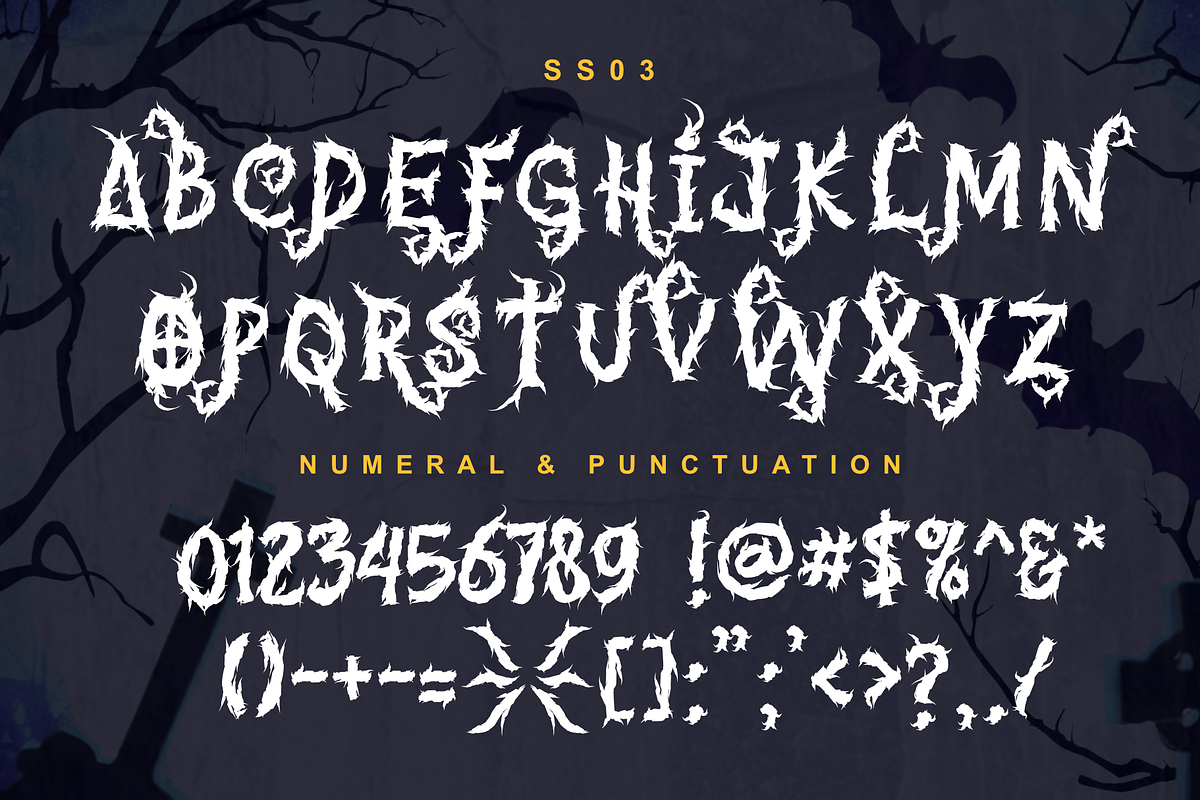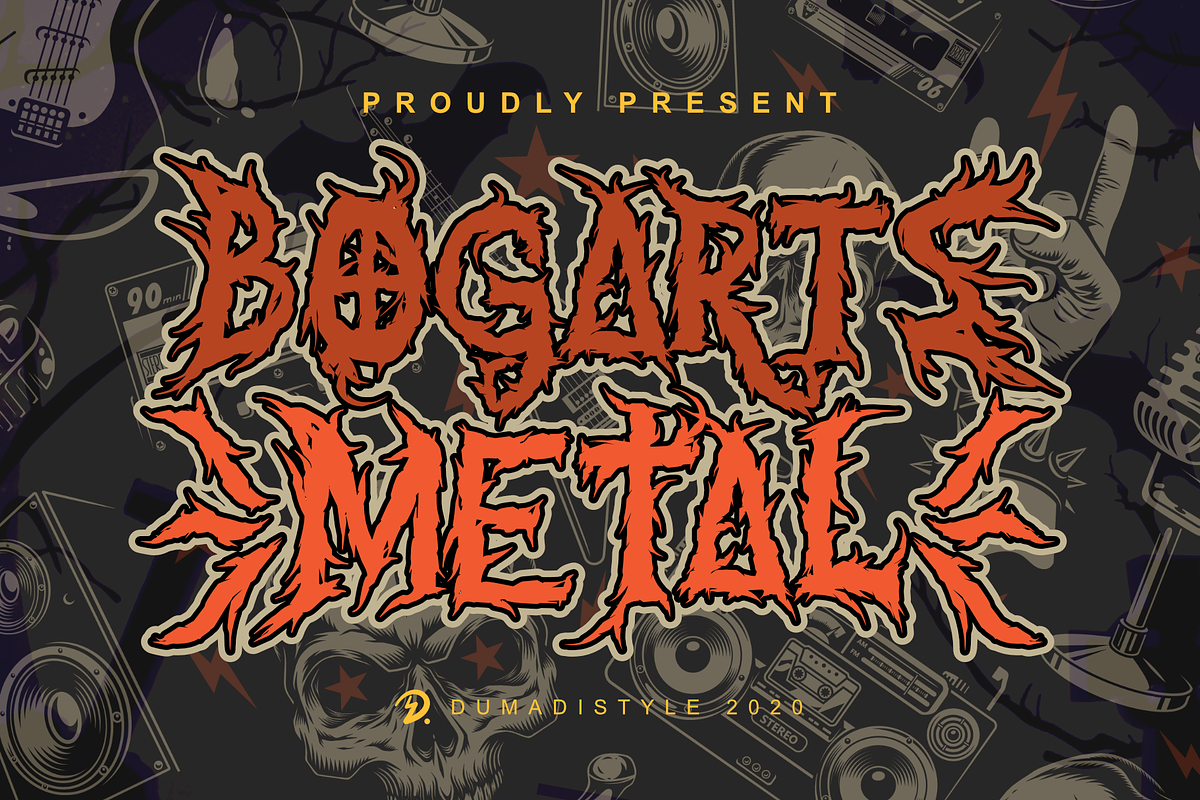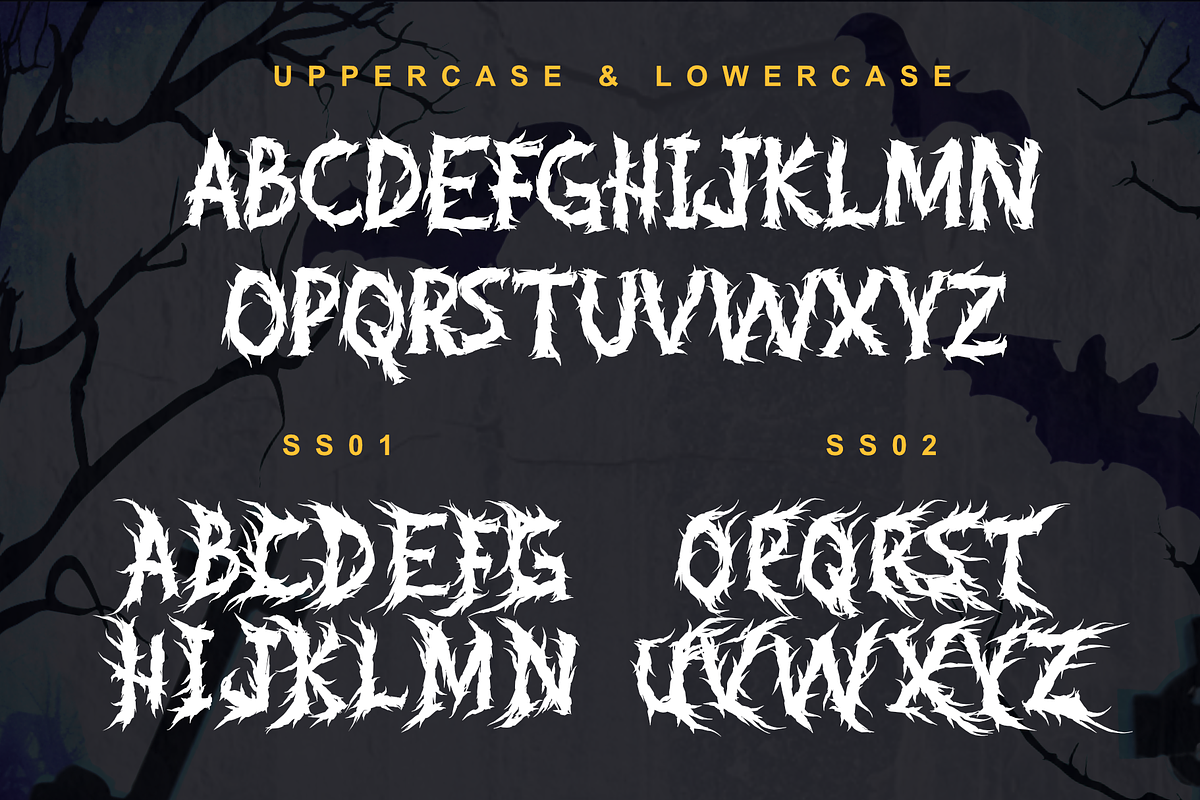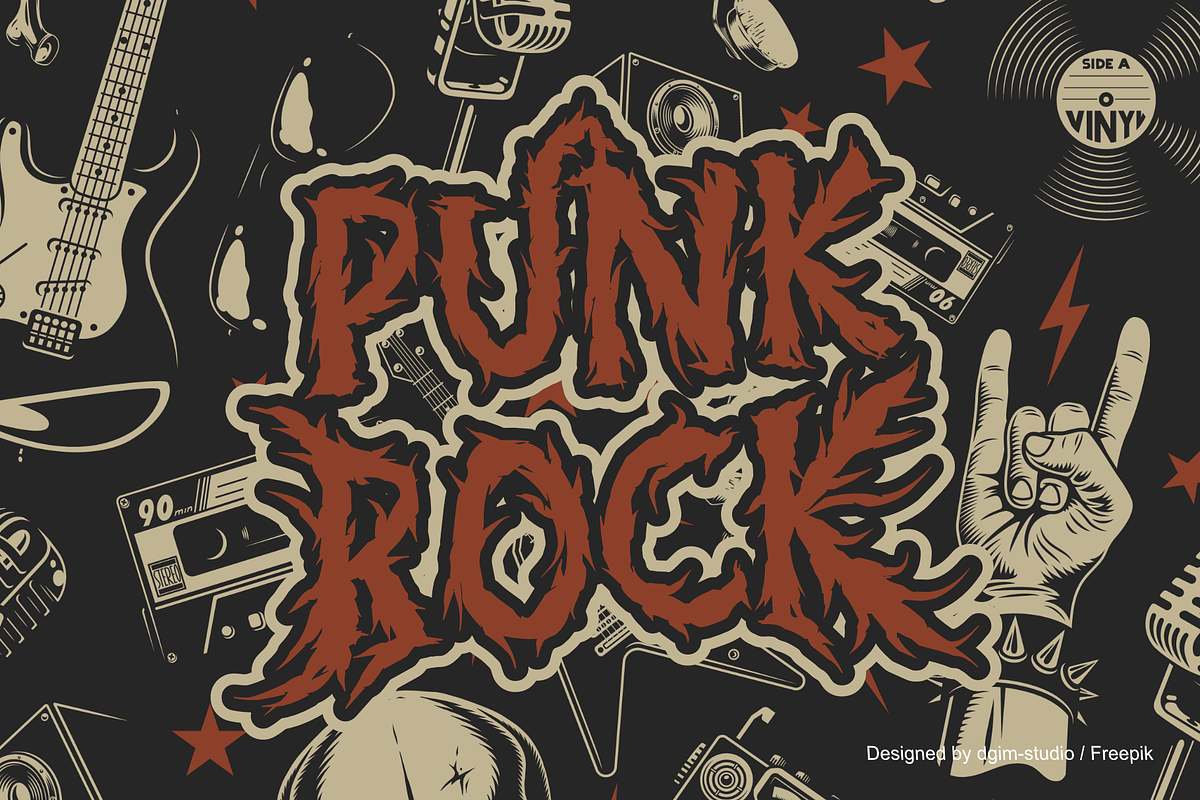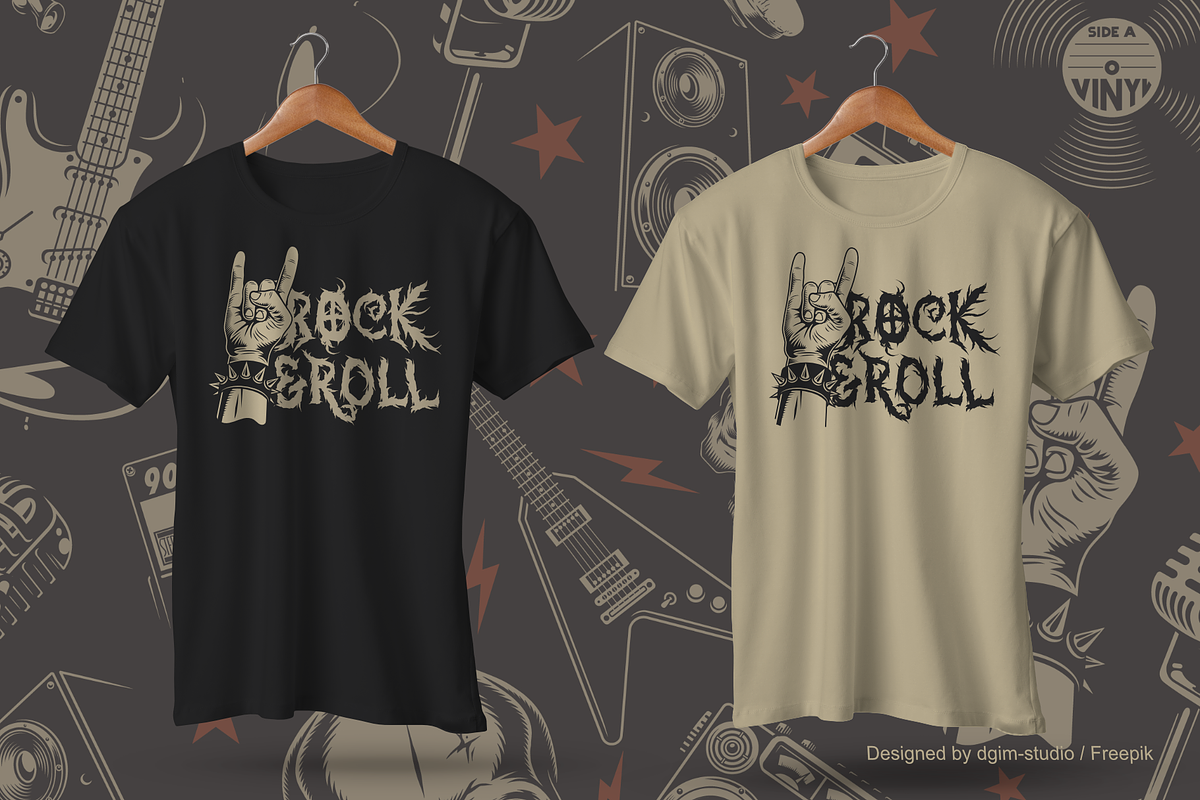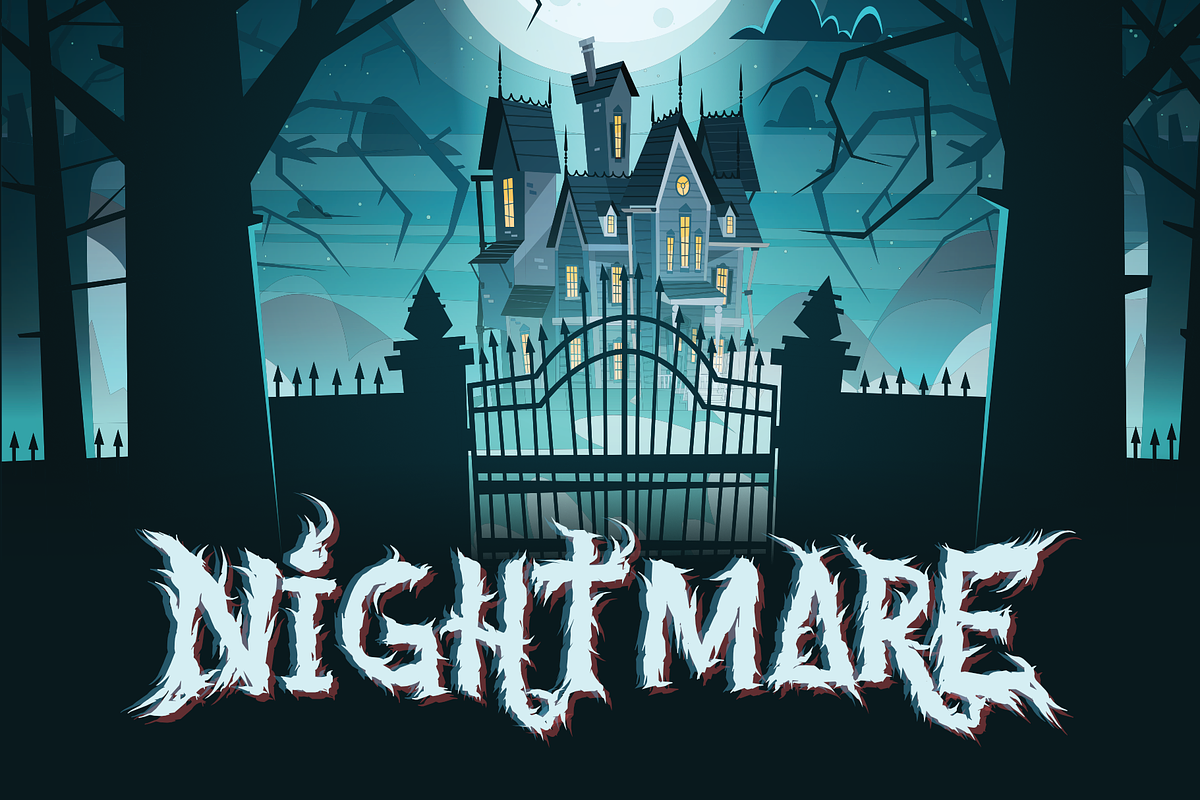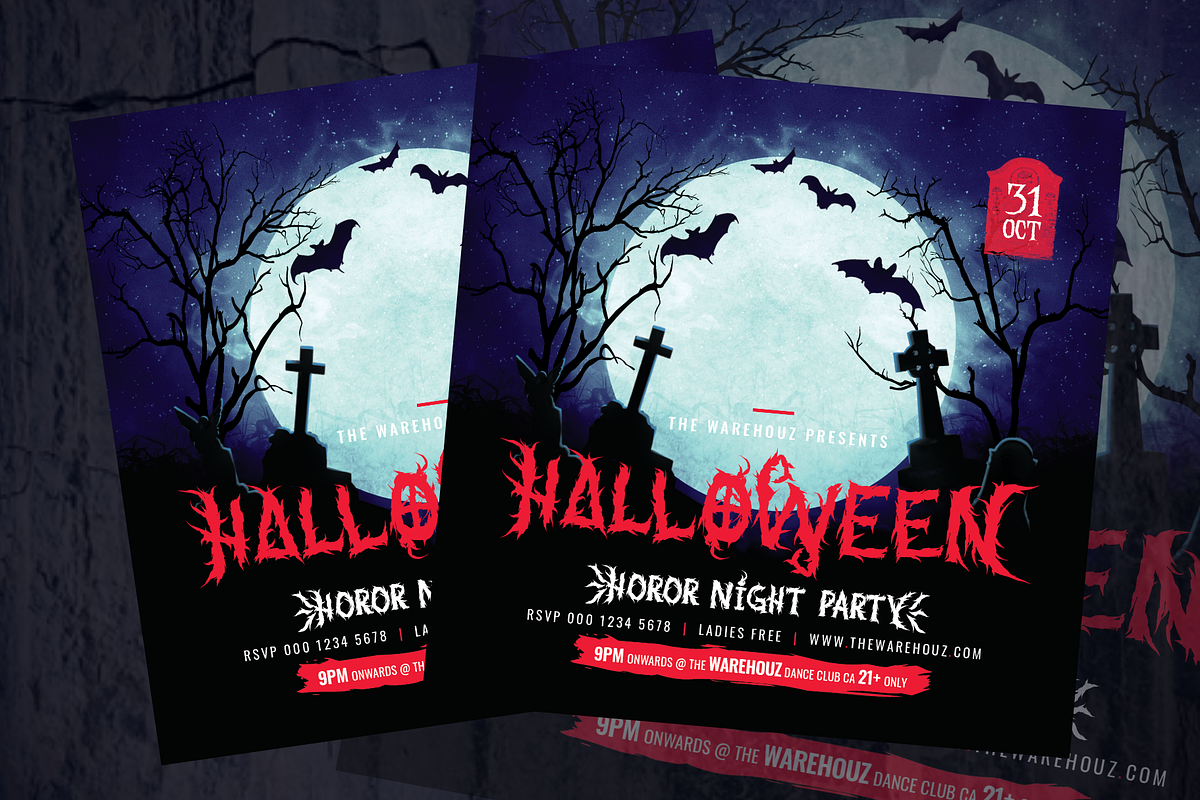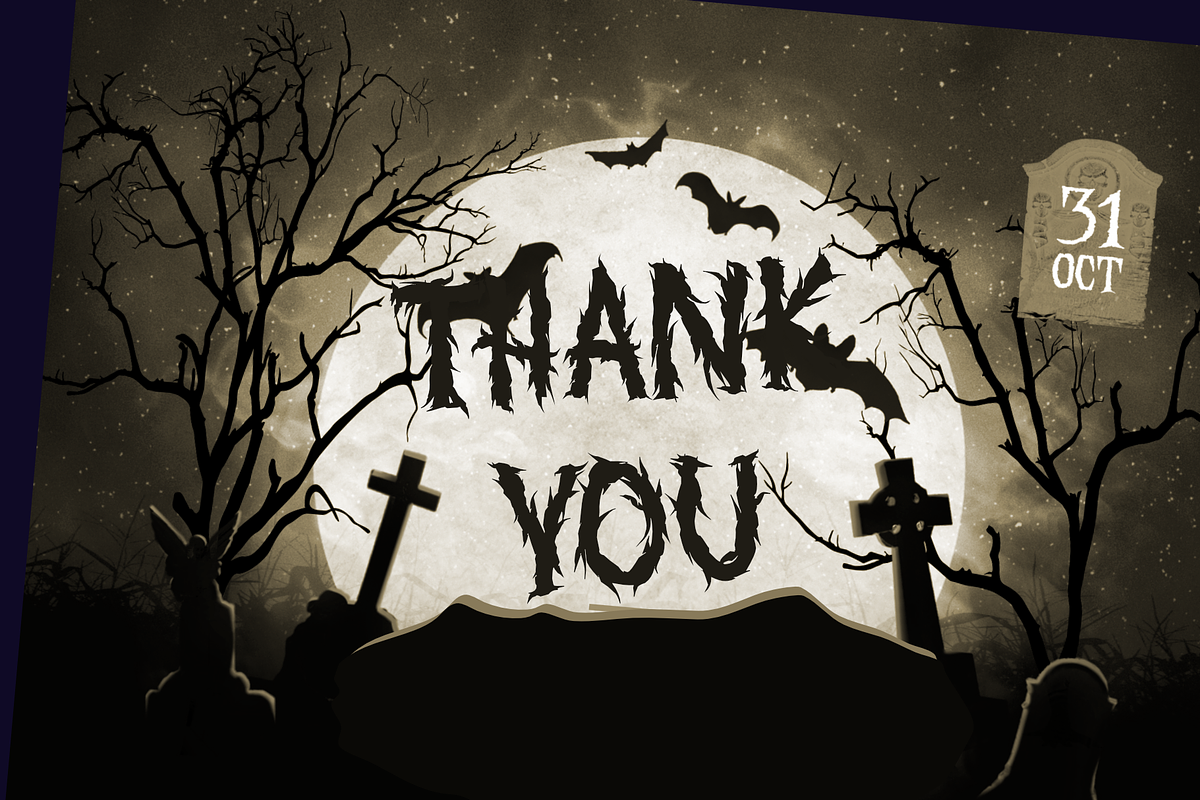
Bogarts Metal
Bogarts Metal is a scary font like the roots. element inspired by underground fonts. Bogarts Metal offers a scary and wicked atmosphere for your design project.
Suitable for event titles, posters, t-shirt designs, music covers, and other creepy designs, in the Bogarts Metal font there is ALL CAPS as the main font with Glyphs Numeral and punctuation standards, and is equipped with Stylist SS01 as a start, SS02 as the ending, and SS03 as an alternative to a cool font.